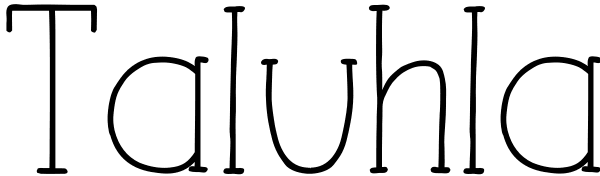
Taluhla
Taluhla is lovely handwritten font with a matching set of borders, banners and ornaments. It is unique, elegant and easy to read. Taluhla has 3 different weights (light, regular and bold). It can be best used for invitations, greeting cards...
Taluhla Bold
Taluhla
Taluhla Borders
Taluhla Light